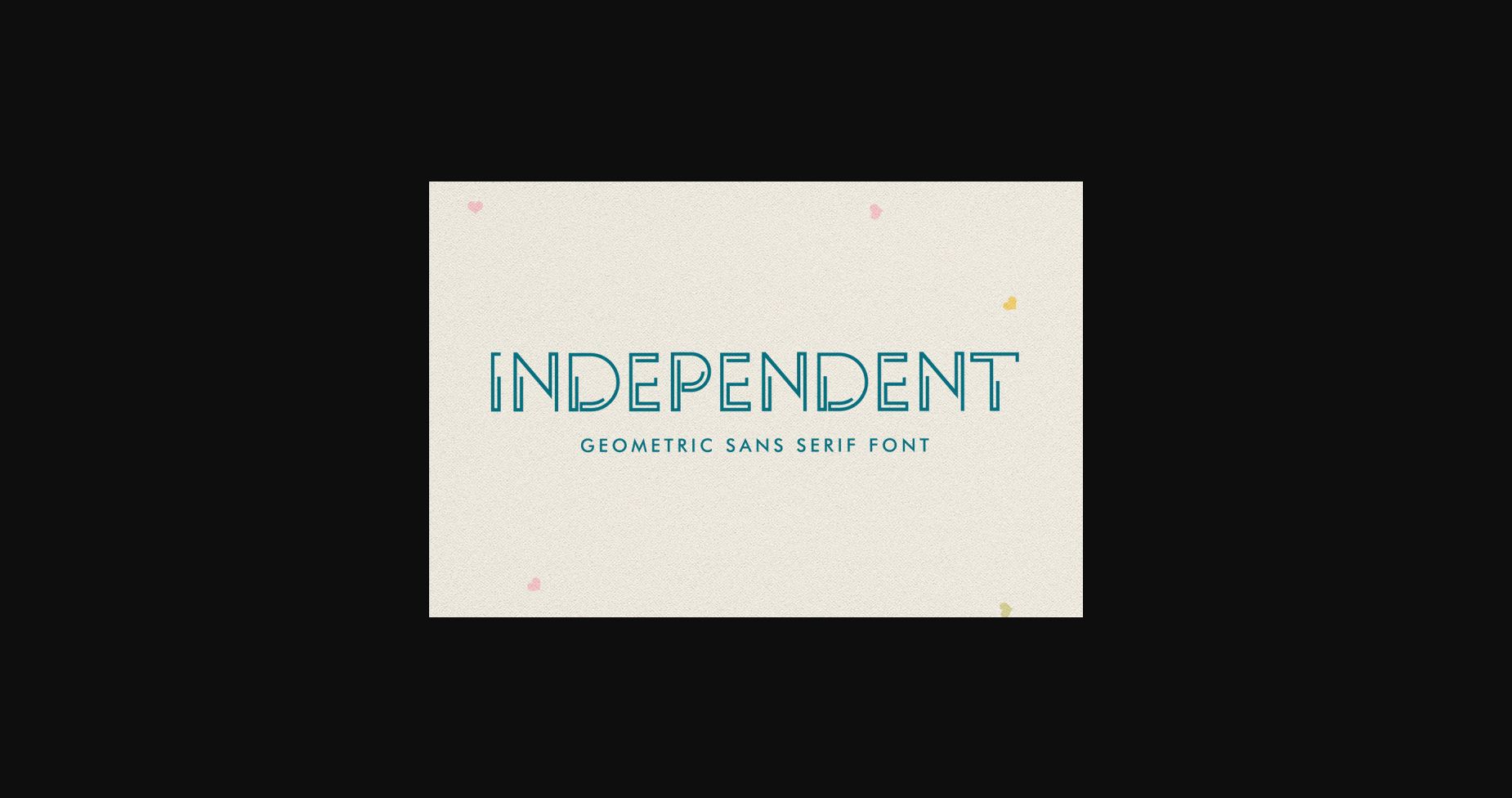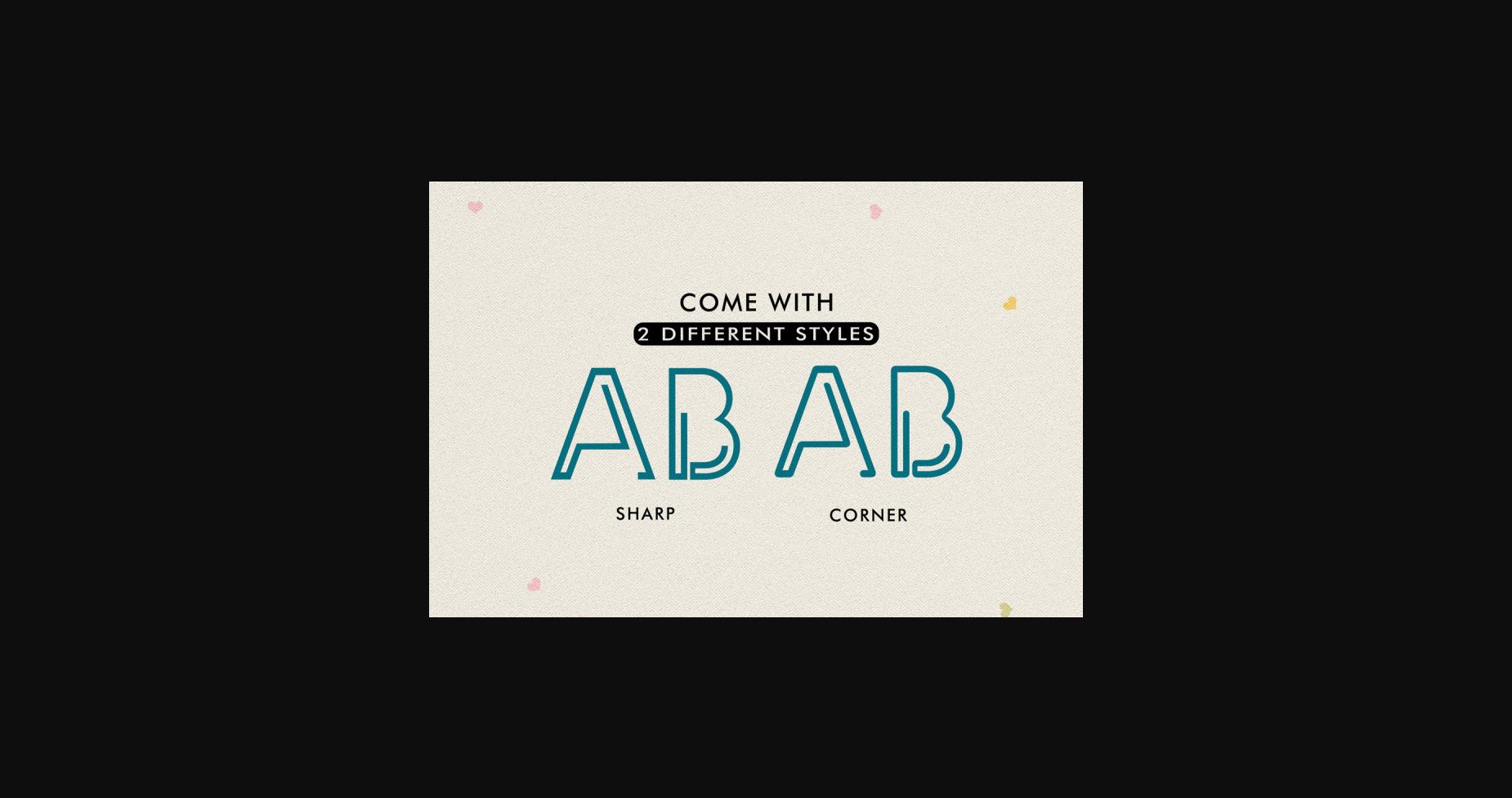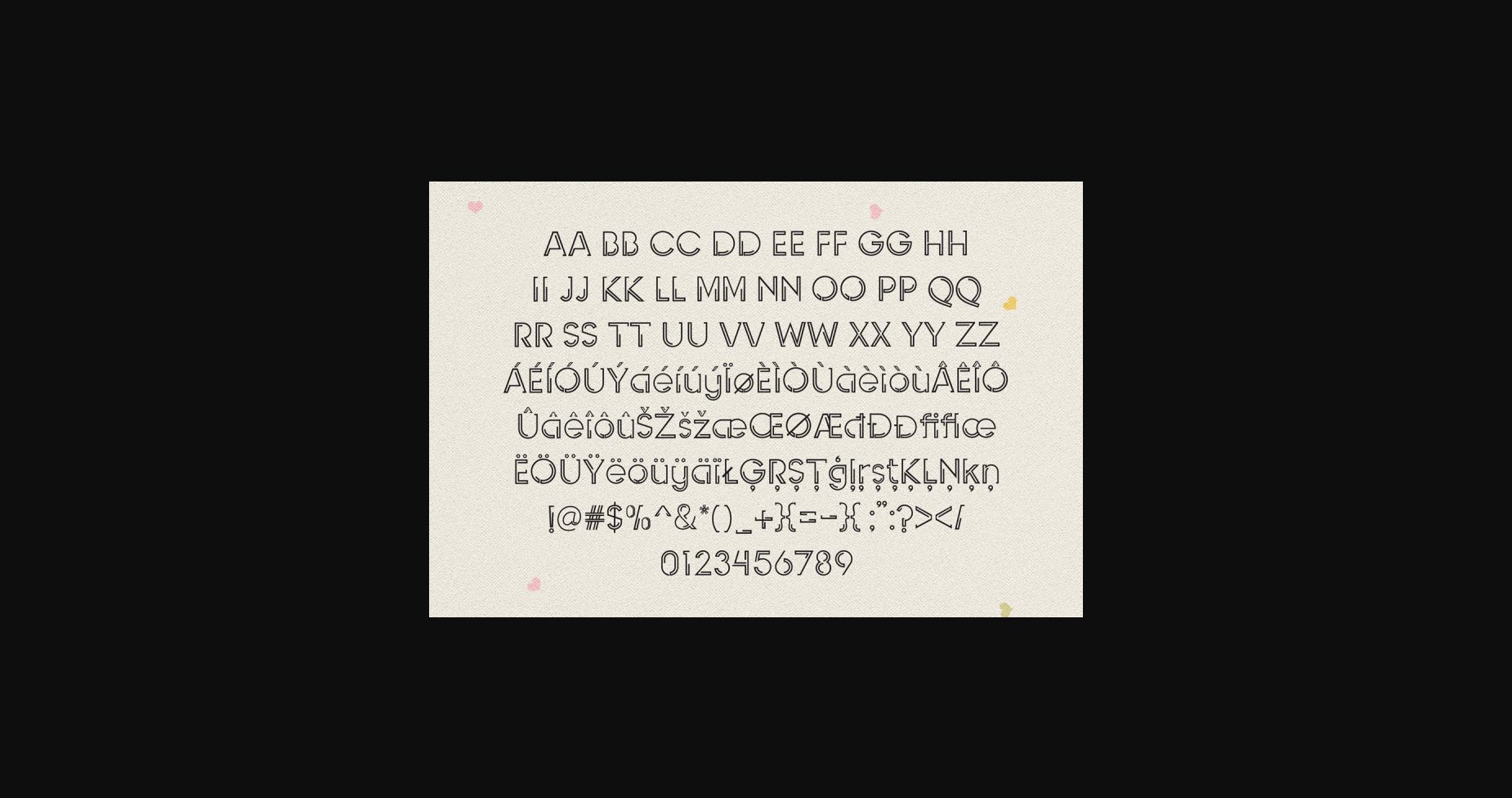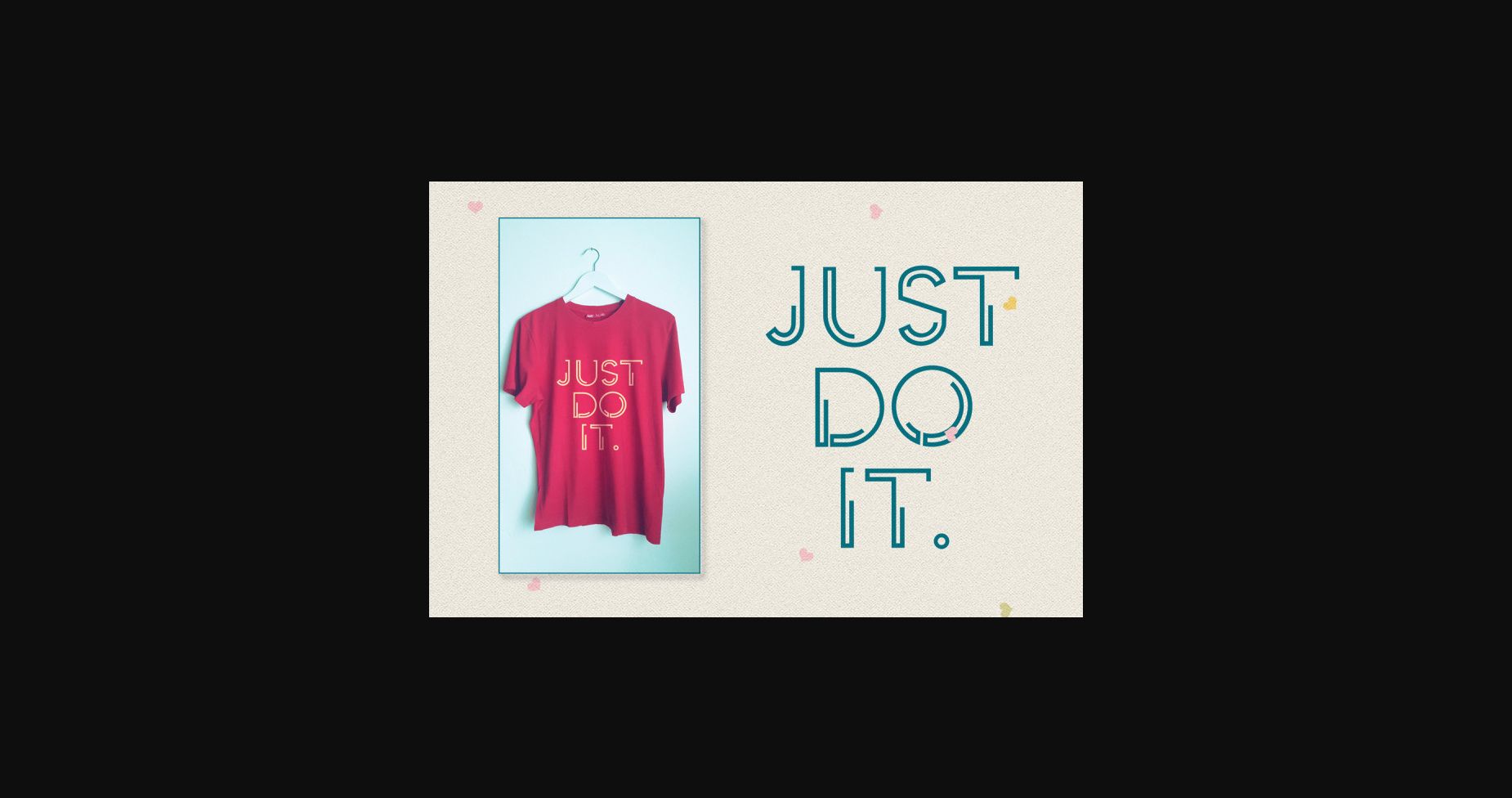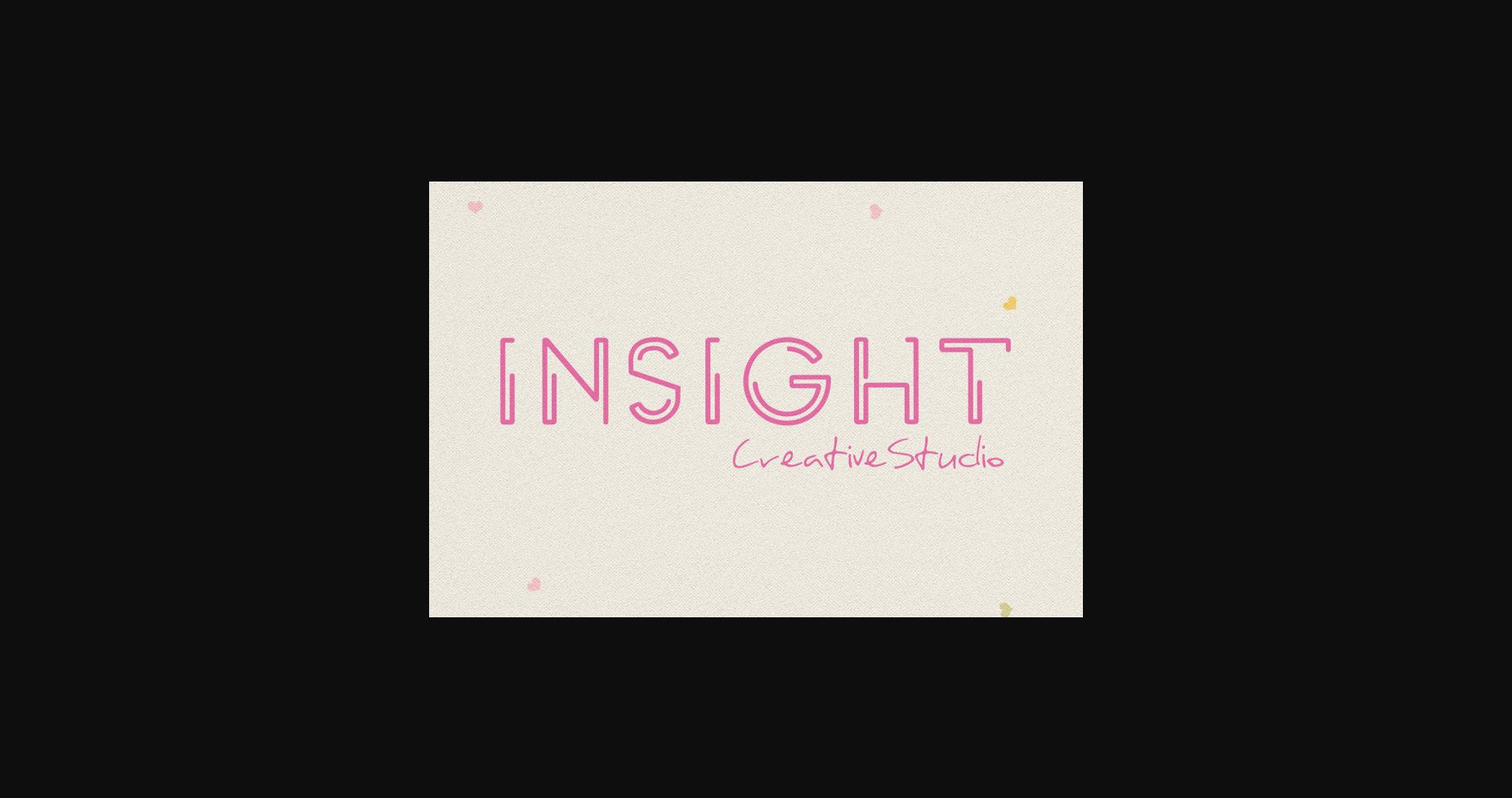
About Independent Font
Independent is a geometric styled display font, featuring a young style with the emphasis on angle and accuracy.
It works on posters, logotypes, magazines, covers, banners, t-shirts and headers, or even large-scale artwork.